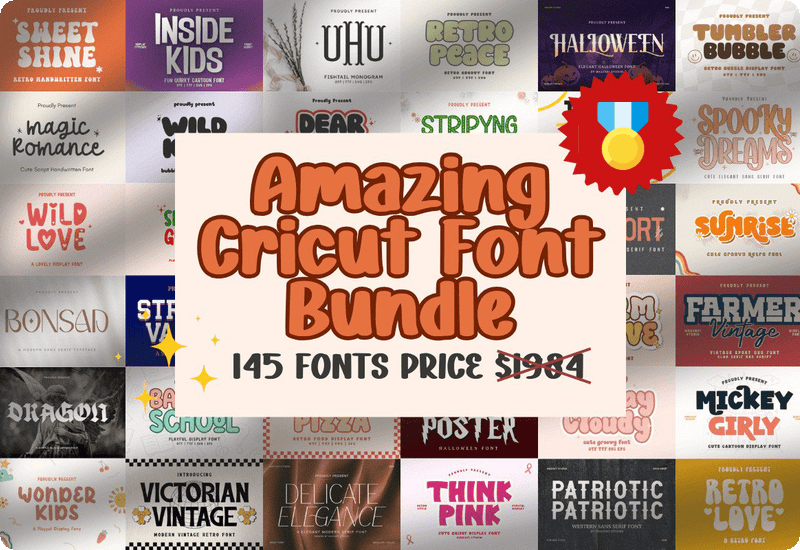
Calling all crafters, designers, and DIY enthusiasts! The Amazing Cricut Font Bundle is your ultimate companion for creative projects. Packed with 145 premium fonts valued at an incredible $1,984, this exclusive collection is now available to you—for FREE, while supplies last. Designed for versatility and creativity, the bundle includes a commercial license, ensuring you can craft without limits across personal and commercial projects.
Whether you’re creating personalized gifts, custom branding materials, or stunning die-cut designs, this collection has something for everyone. From retro-inspired fonts to elegant scripts, bold slab serifs, and whimsical decorative styles, the Amazing Cricut Font Bundle provides endless possibilities to elevate your creative projects.
What’s Included in the Amazing Cricut Font Bundle?
This bundle features 145 meticulously crafted fonts, covering a wide variety of styles to suit any project:
- Retro Fonts: Add a touch of nostalgia with bold, vibrant typefaces like Retro Peace, Bali Retro, and Sunrise.
- Script and Handwritten Fonts: Create elegance and charm with fonts such as Lovely Young, Angelina, and Cherry Sunday.
- Slab Serif Fonts: Achieve clean, professional designs with fonts like Smart Artisan, Great Scholar, and The Westview.
- Vintage Fonts: Channel timeless sophistication with Farmer Vintage, Victorian Vintage, and Antique Resolute.
- Decorative Fonts: Craft unique and playful designs with fonts like Wild Love, Cowboy College, and Wood Pirates.
- Hobbyists and Creators: Explore new creative possibilities with this diverse font collection.